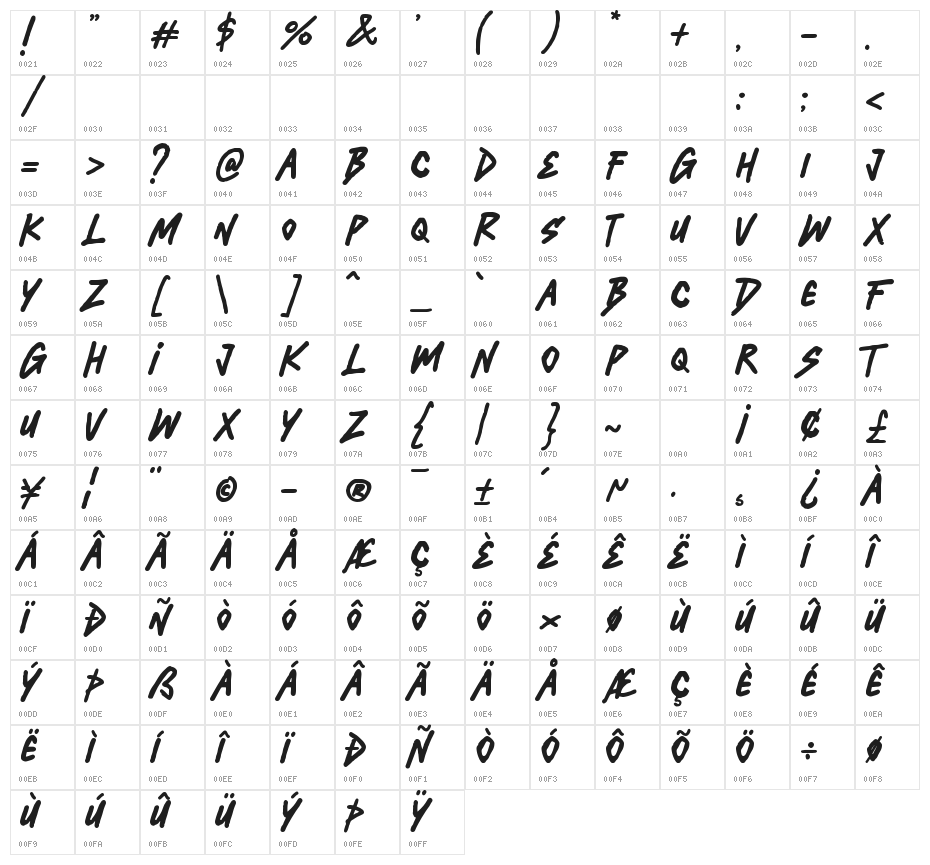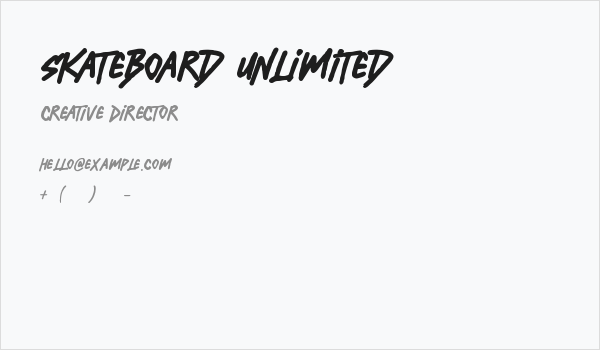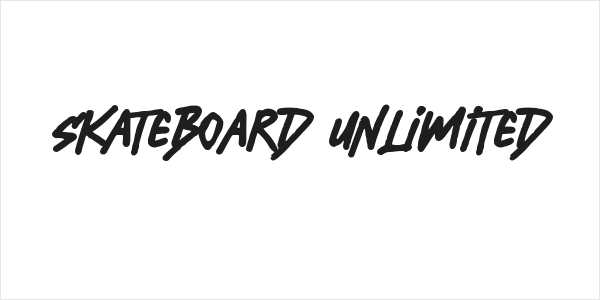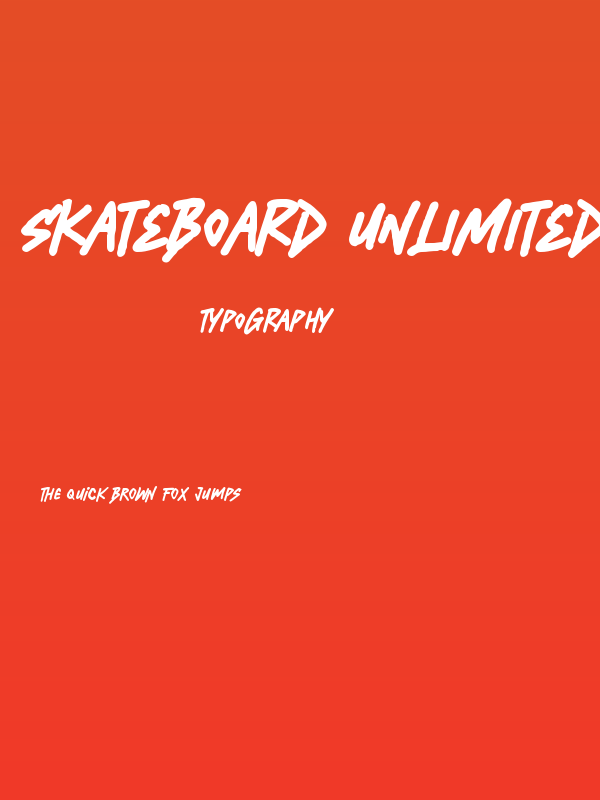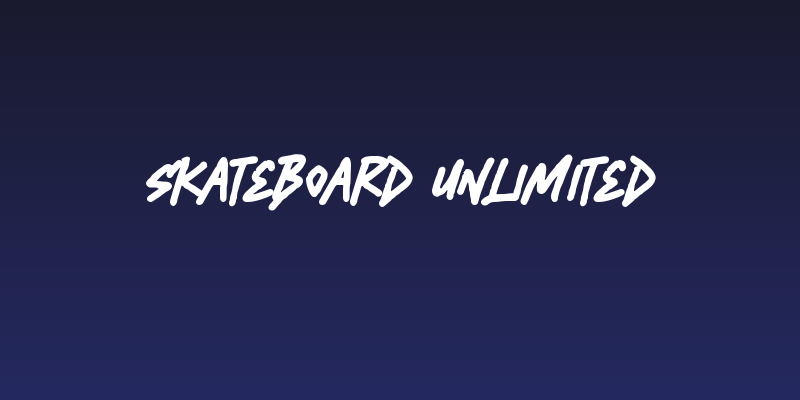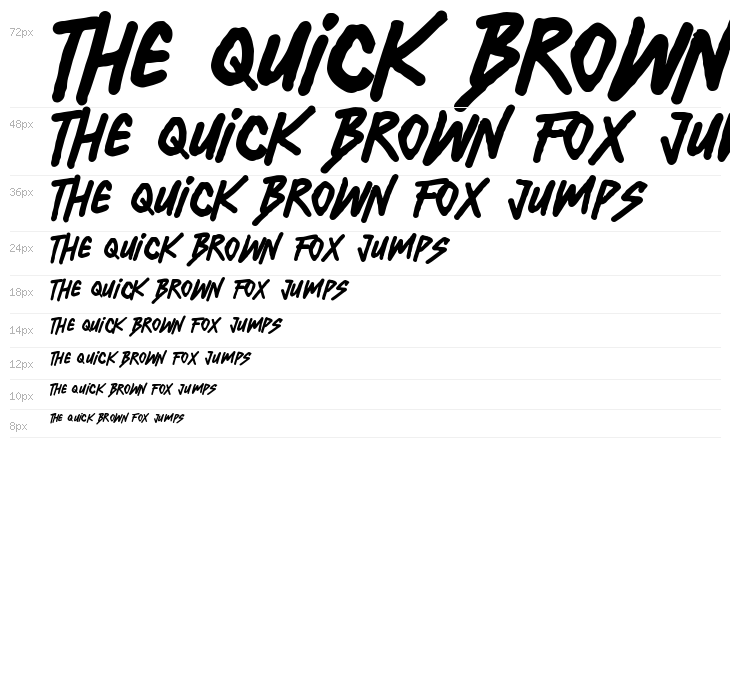
Skateboard Unlimited Font
Skateboard Unlimited Description
This font exudes a bold and energetic vibe, characterized by its thick, brush-like strokes that give it a dynamic and expressive appearance. The letters are slightly slanted, adding a sense of movement and spontaneity. The uppercase and lowercase letters maintain a consistent style, with rounded edges and a casual, handwritten feel. The numbers and special characters are equally bold, ensuring a cohesive look across all elements. This font is perfect for projects that require a lively and informal touch, making it ideal for creative and youthful designs.